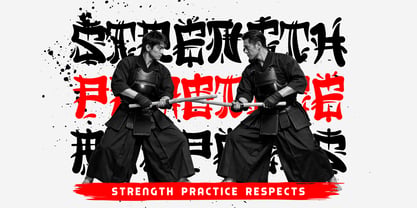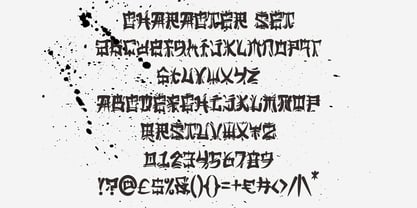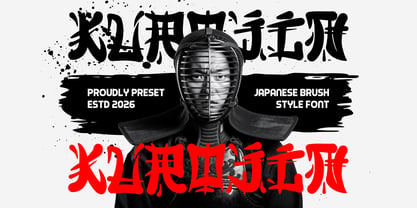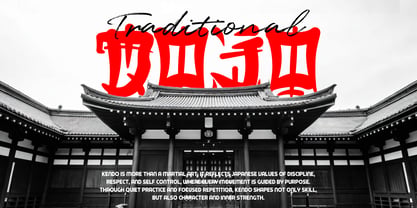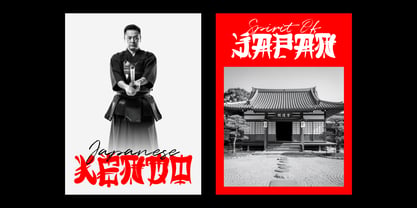
Kurojin
by Shanaf
The Kurojin Font Family was designed by Yesie Erma Yunita and published by Shanaf. Kurojin contains 1 styles. More about this family
Kurojin Japanese Brush Font captures strong brush energy with bold strokes and sharp rhythm. Each character uses thick bodies, tapered ends, rough edges, and expressive cuts. The letterforms feel handcrafted, fast, and full of motion. Wide shapes create strong presence in logos and titles. Uneven contours add authentic ink character without losing readability. This style blends traditional brush spirit with modern display impact. It suits restaurant branding, ramen shops, sushi bars, tea houses, and street food labels. Use it for posters, menu covers, packaging, stickers, book covers, and event banners. It also works for martial arts studios, gaming titles, travel campaigns, and cultural promotions. Kurojin Japanese Brush Font helps brands stand out with bold identity and memorable attitude.
Designed for statement use, this font performs well in short phrases and large headlines. The energetic structure gives packaging and signage a confident voice. It fits Asian cuisine products, beverage labels, craft stores, and creative agencies. Use it for logo systems, magazine titles, social media ads, flyers, and merchandise tags. Pair it with clean sans text for balance and clarity. The brush texture adds movement, depth, and natural character. Strong vertical strokes suggest discipline, focus, and tradition. Rounded sections keep the style friendly and inviting. This typeface turns simple wording into expressive branding fast. Choose it when your project needs culture, strength, and modern brush appeal.
Designers: Yesie Erma Yunita
Foundry: Shanaf